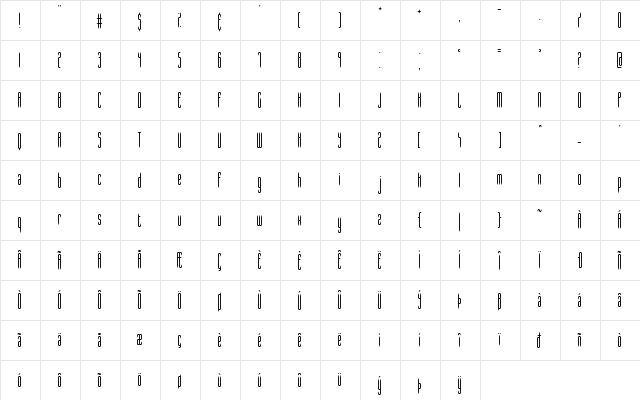
Slender BRK Normal
Design Context for Slender BRK Typeface
Slender BRK is a composed and adaptable typeface that performs quietly and consistently across a wide range of design contexts.
Pro Tip: Pair Slender BRK with a font of contrasting weight or personality to build a more expressive typographic hierarchy.